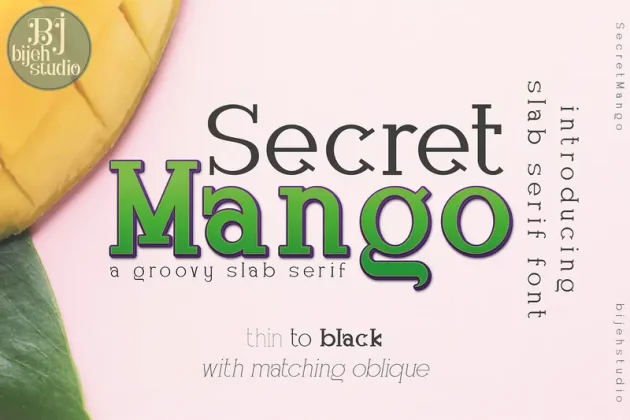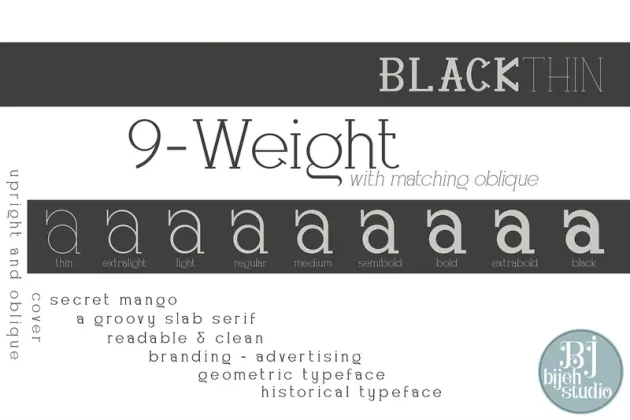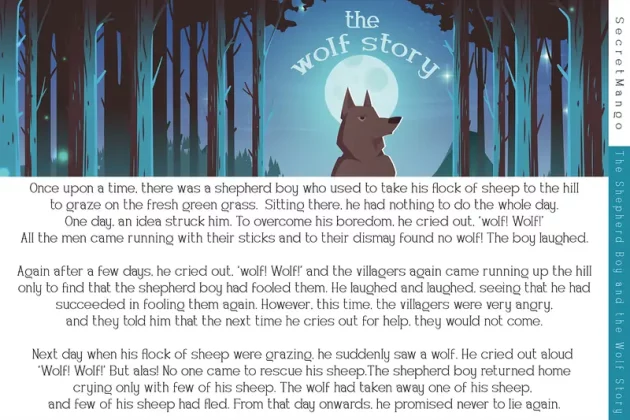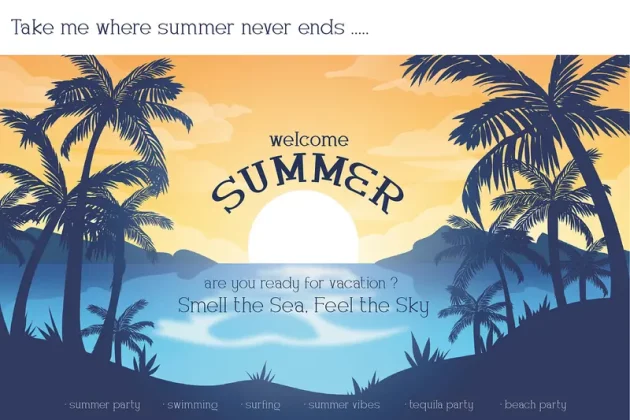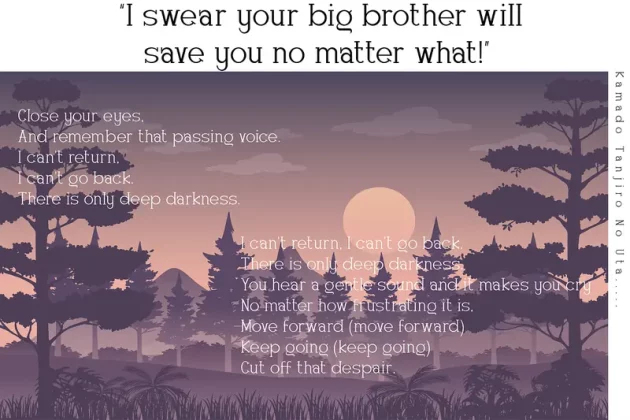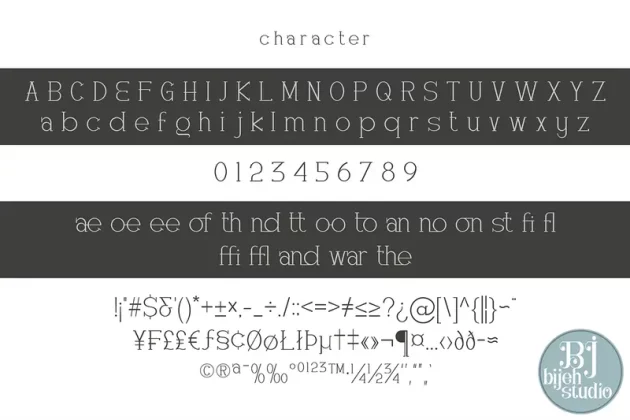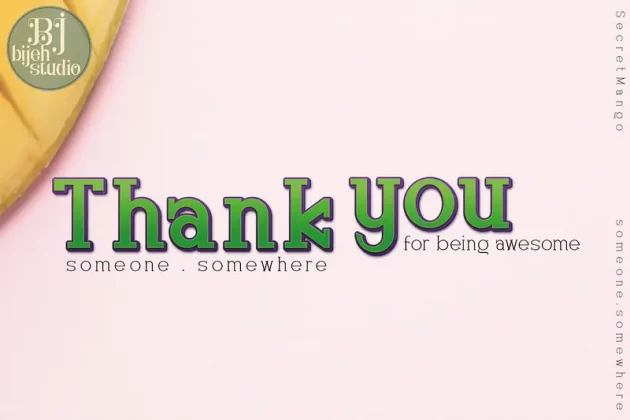
Secret Mango Font
About Secret Mango Font
Secret mango ia a simple character shapes and open counters, make for an exceptionally legible design. Secret mango available with matching oblique to make more touch and allowing you to make each word look completely stylish. True to the reflection of Slab serif, always associated with confidence, solidarity and courage, “Secret Mango” represents all of that.